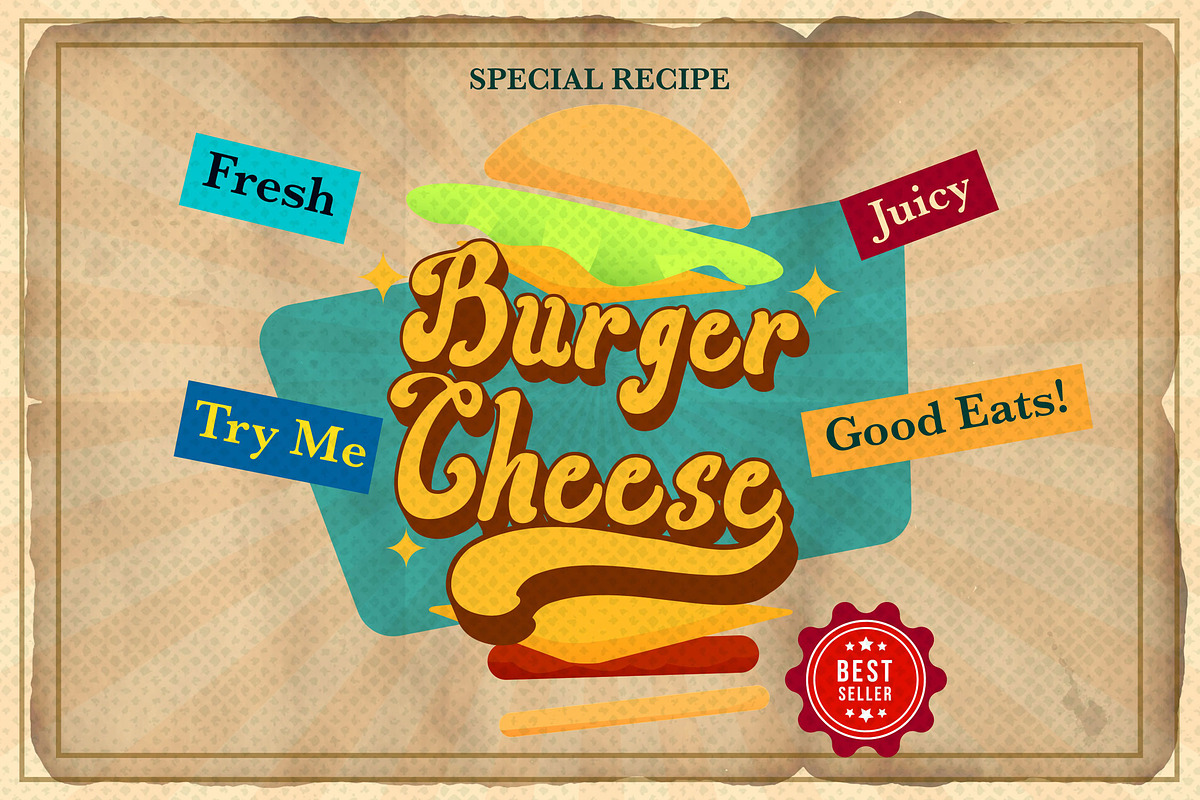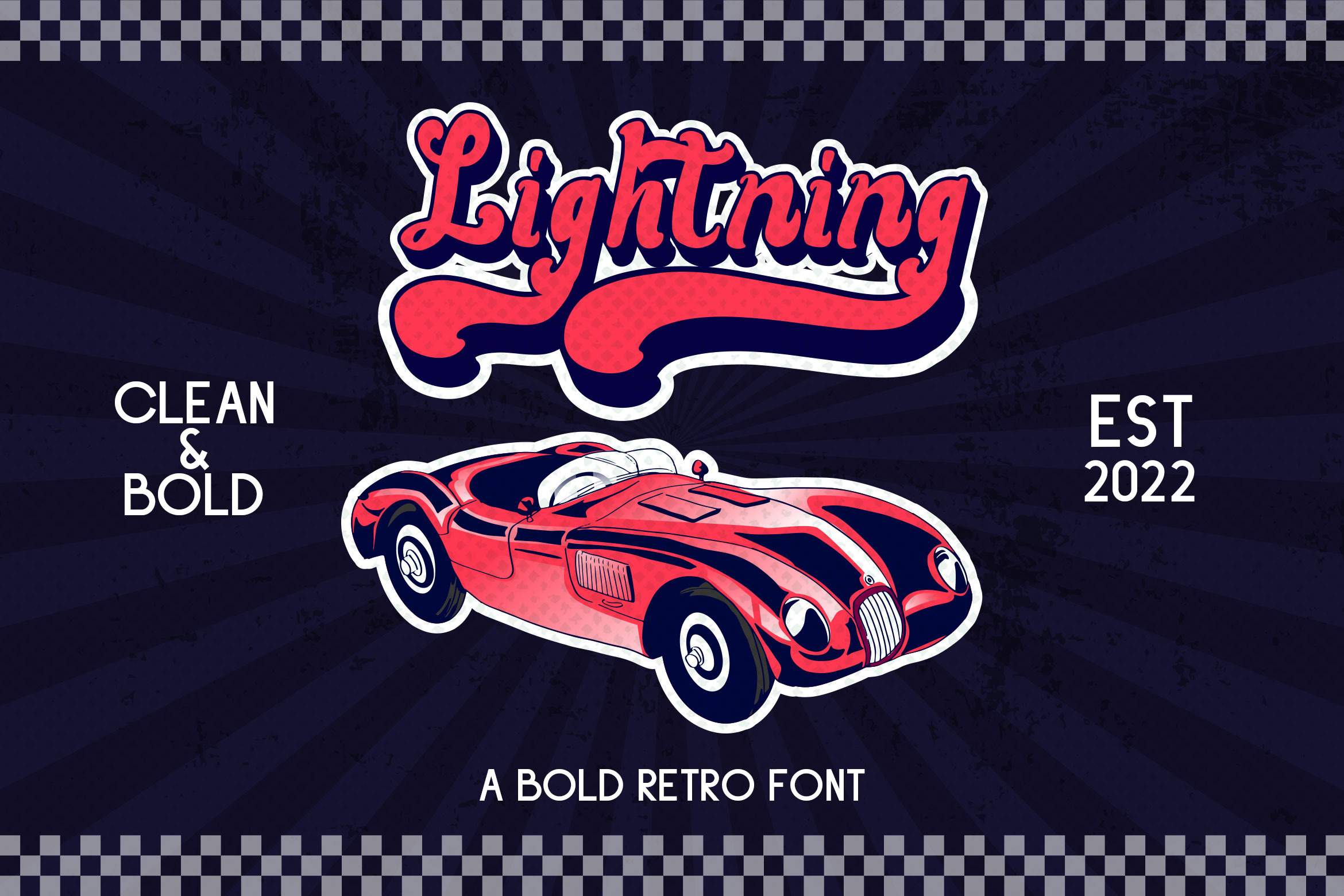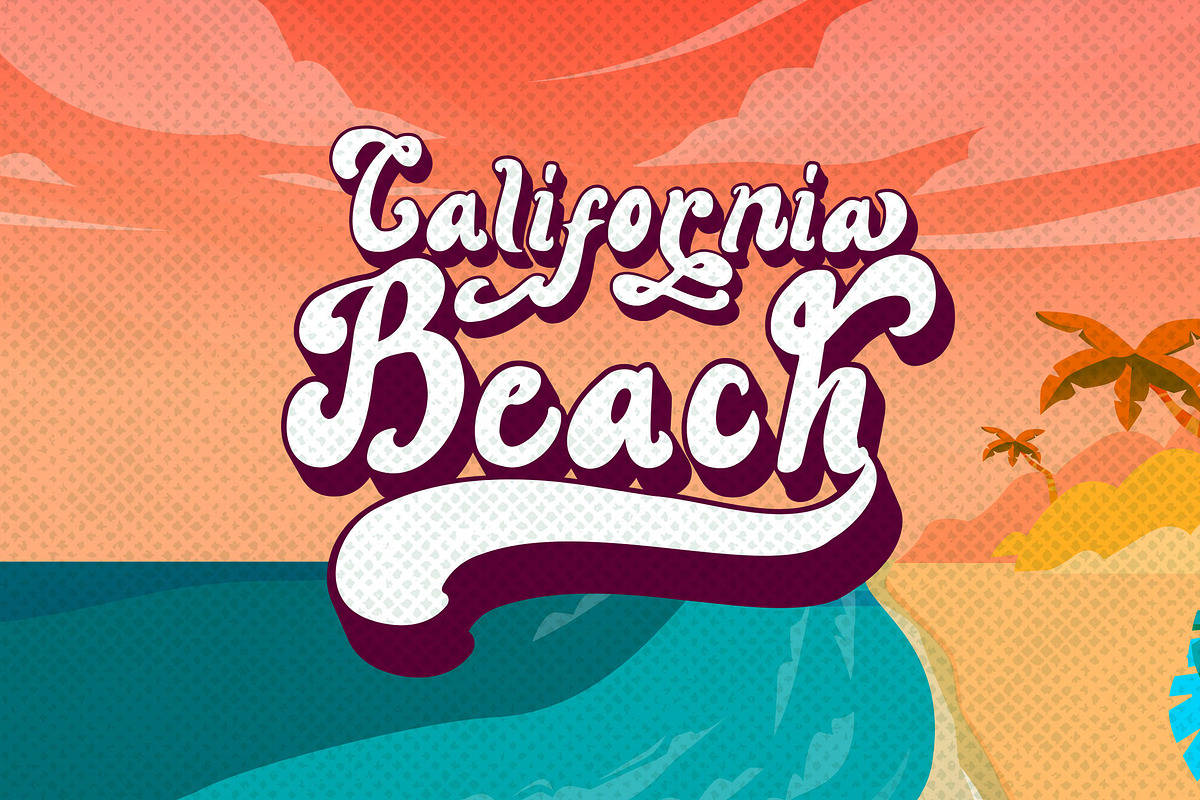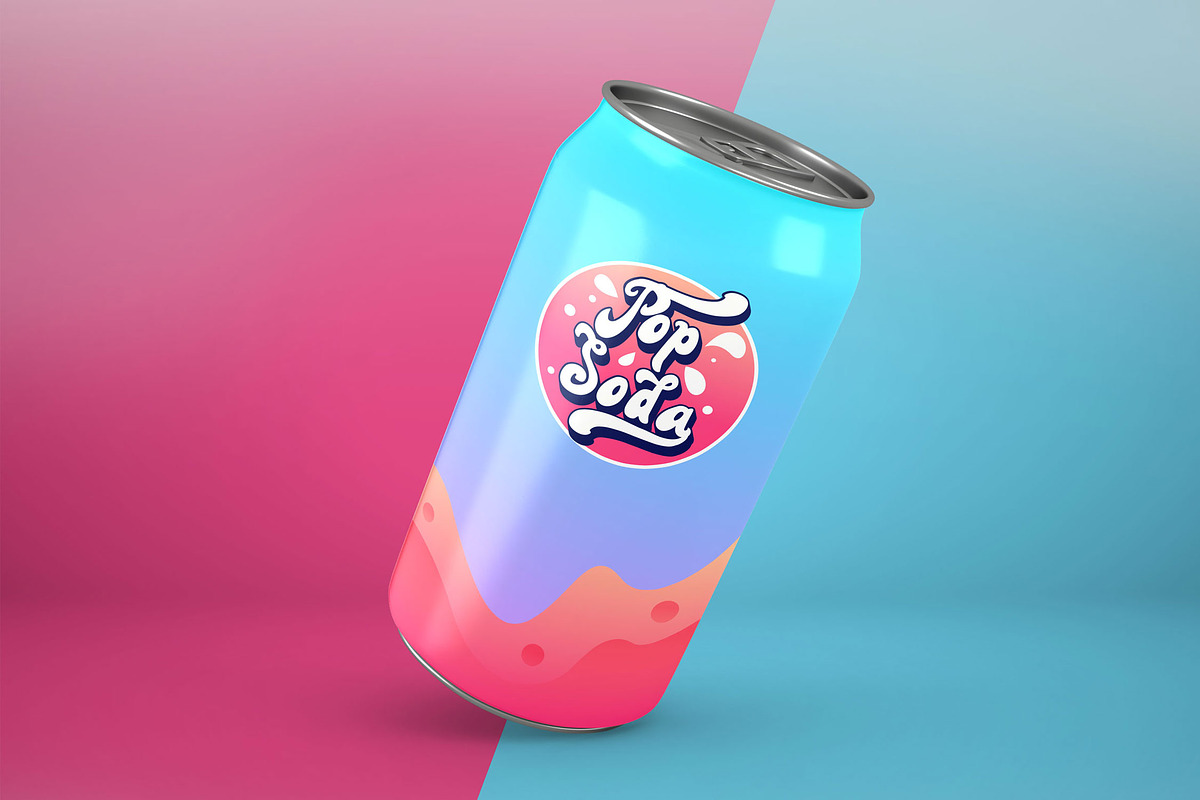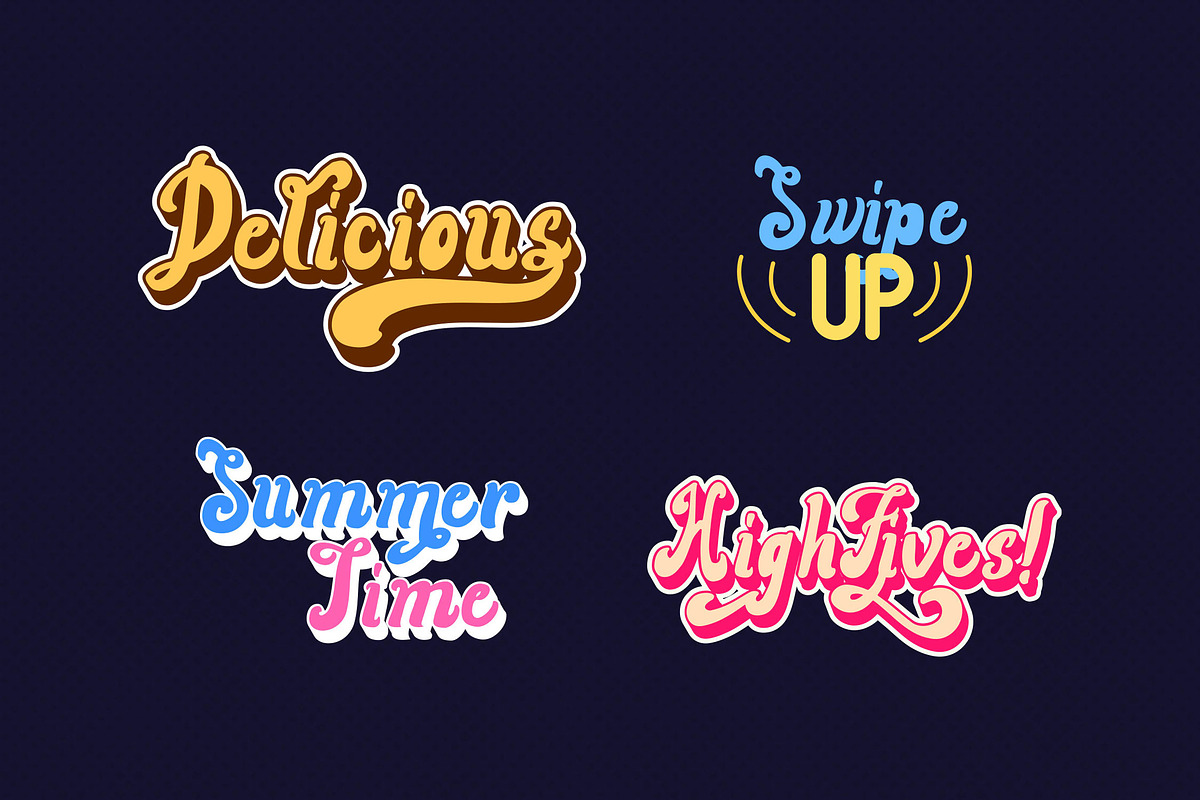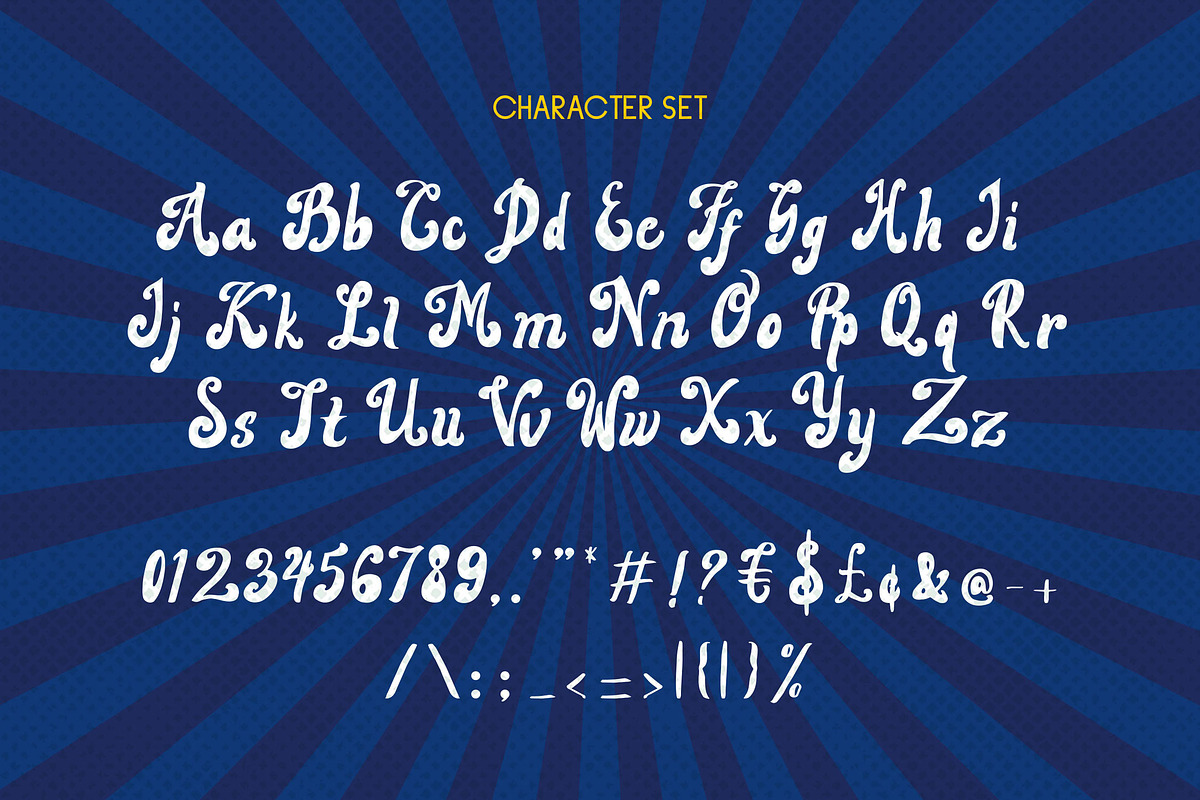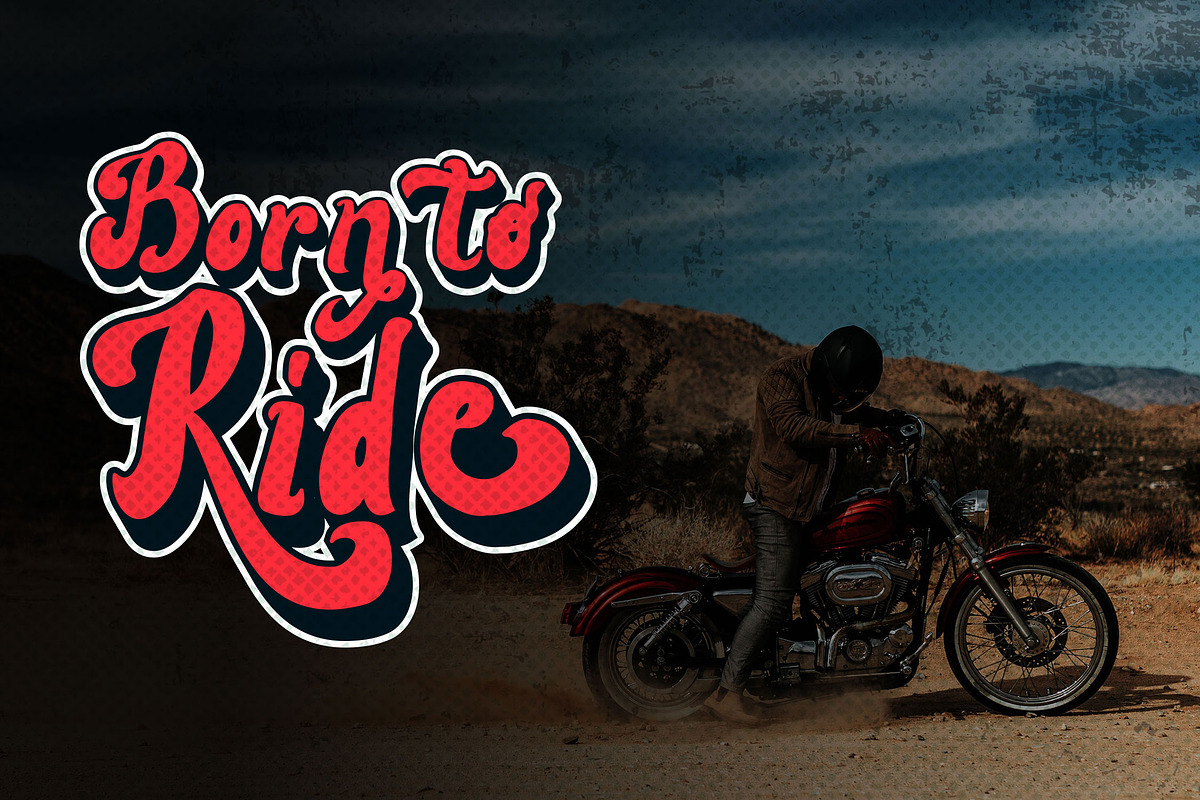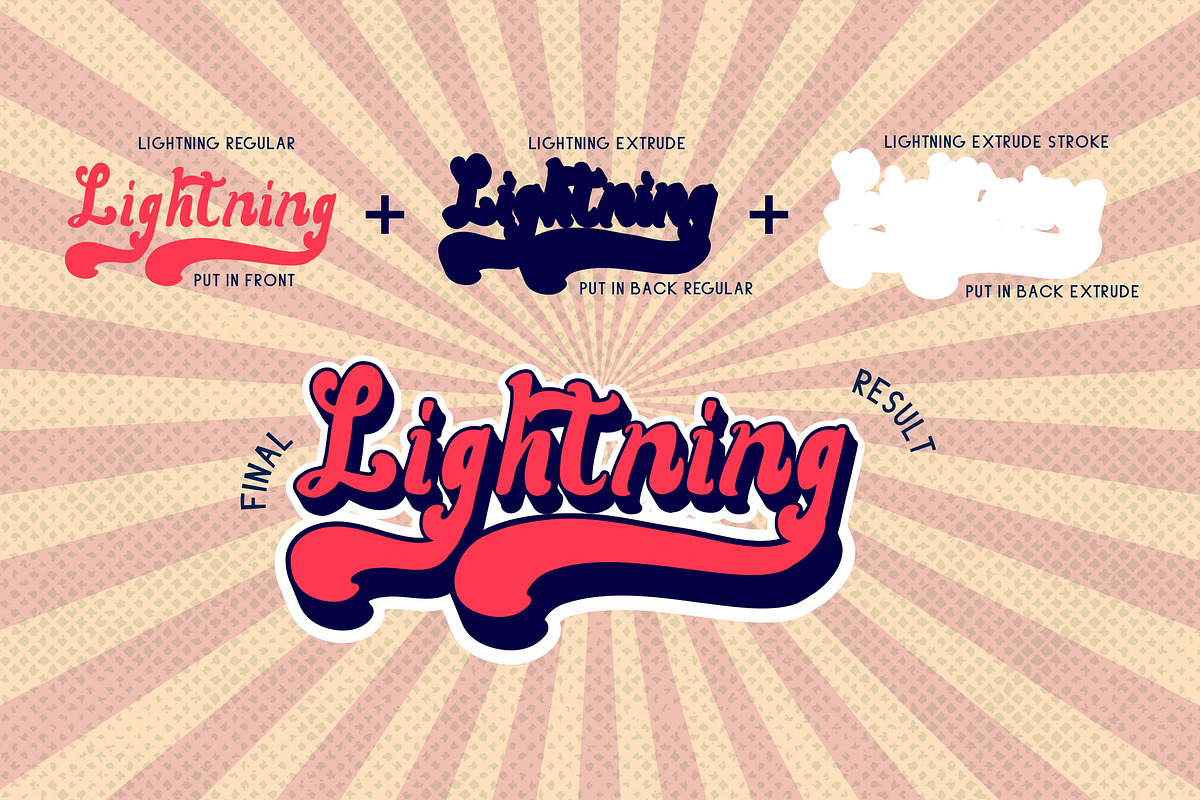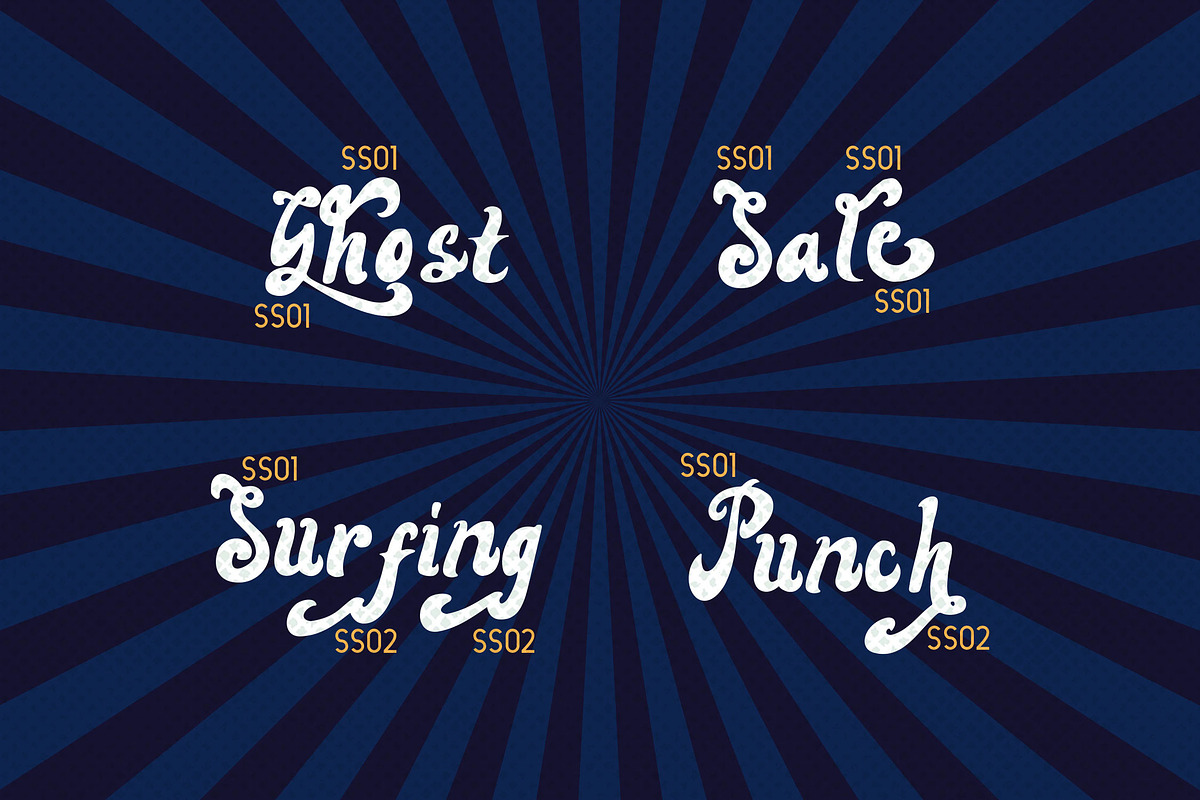
Lightning - A Bold Retro Font
Introducing Lightning, is a Classic Bold Retro Font has many purpose and suitable for badges, logotype, retro event, classic, coffee shop, event, classic modern, advertising and much more.
- Available Ligatures and Alternates
- Available Multilingual Set